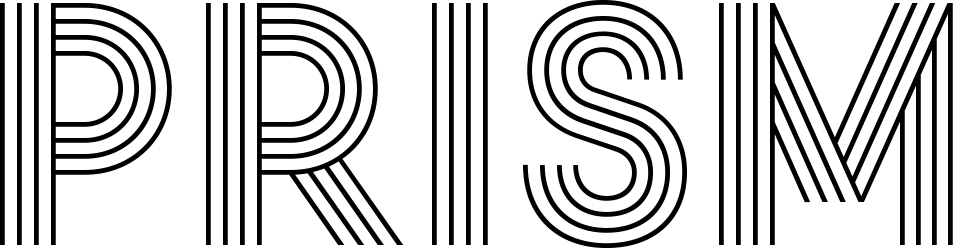
Prism Font
Include Prism font as a magnetic element for audience curiosity which is one of the retro fonts commonly used for music covers. This 90s T-shirt font does not support small letters, but uppercase and numbers with parallel lines with the help of musical elements make it a great fit for creating concert flyers.
These retro characters speak loudly of nostalgic vibes for many logos, posters, and business cards for DJs and artists.